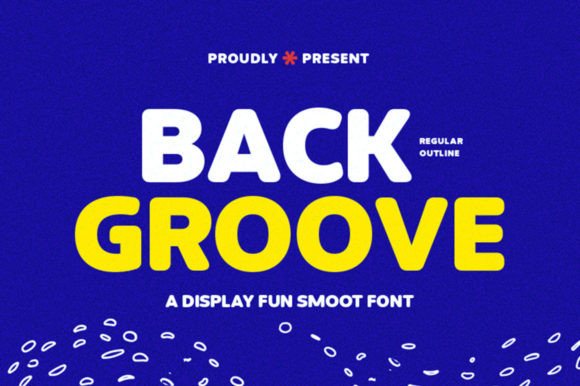
Back Groove Font
Embark on a typographic journey with Back Groove, a captivating display font that exudes elegance and sophistication. Crafted with meticulous precision, this font is a masterpiece of simplicity and refinement, designed to elevate your creative projects to new heights.
Step into a world where vintage charm meets modern aesthetics. Back Groove's carefully drawn characters possess a timeless beauty, evoking a sense of nostalgia while remaining effortlessly contemporary. Its compact alternative combinations add a touch of delightful unpredictability, ensuring that your designs stand out from the crowd.
Whether you're crafting heartfelt invitations, designing eye-catching logos, or creating stunning home décor, Back Groove is your perfect companion. Its versatility knows no bounds, effortlessly adapting to a wide range of projects and styles. Let your creativity soar as you explore the endless possibilities that await you with this remarkable font.
Experience the magic of Back Groove today and unlock a world of typographic wonders. Its smooth curves and elegant lines will captivate your audience, leaving a lasting impression that will make them yearn for more. Don't settle for ordinary fonts. Embrace the Back Groove and unleash your creative potential.